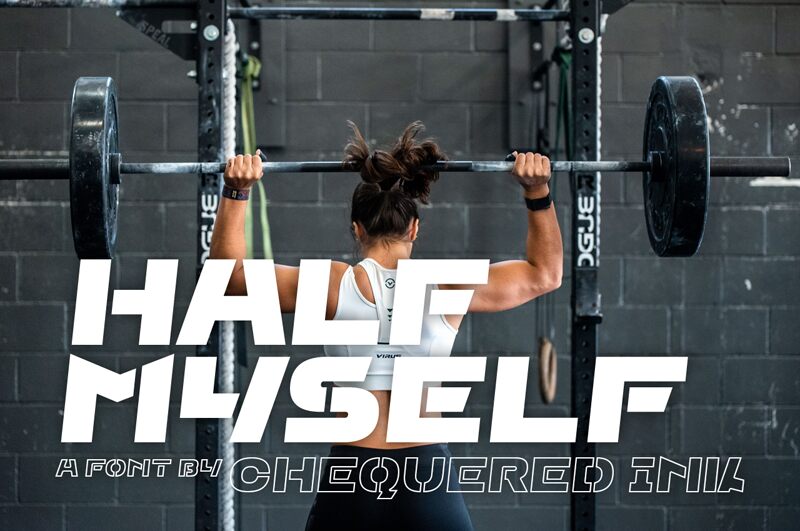
Half Myself Straight
Half Myself Straight font by Chequered Ink is a free bold stencil display font. Built within the Half Myself family, it snaps letters into squared, chiseled blocks with razor-straight cuts that feel engineered rather than decorative. The rhythm is punchy and modular-those deliberate gaps create airflow while the heavy strokes hit like inked rubber stamps. It’s assertive, compact, and unmistakably modern.
Using Half Myself Straight, headlines land hard without losing clarity. It shines on esports branding, sci‑fi titles, streetwear drops, event posters, stickers, and rugged packaging. Set it big with a touch of extra tracking, and pair with a clean neo‑grotesk for body copy to let this free font’s angular geometry do the talking.
Half Myself by Chequered Ink.